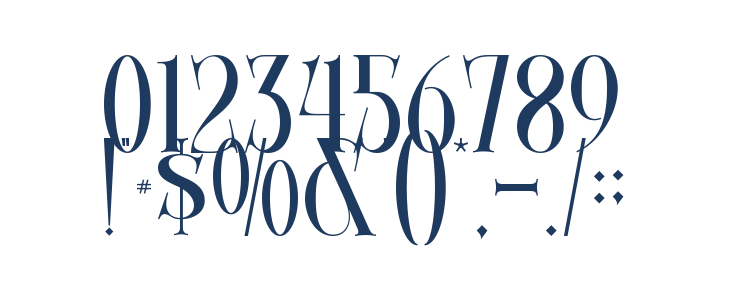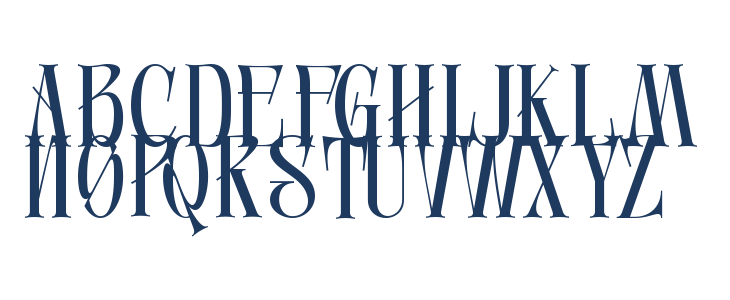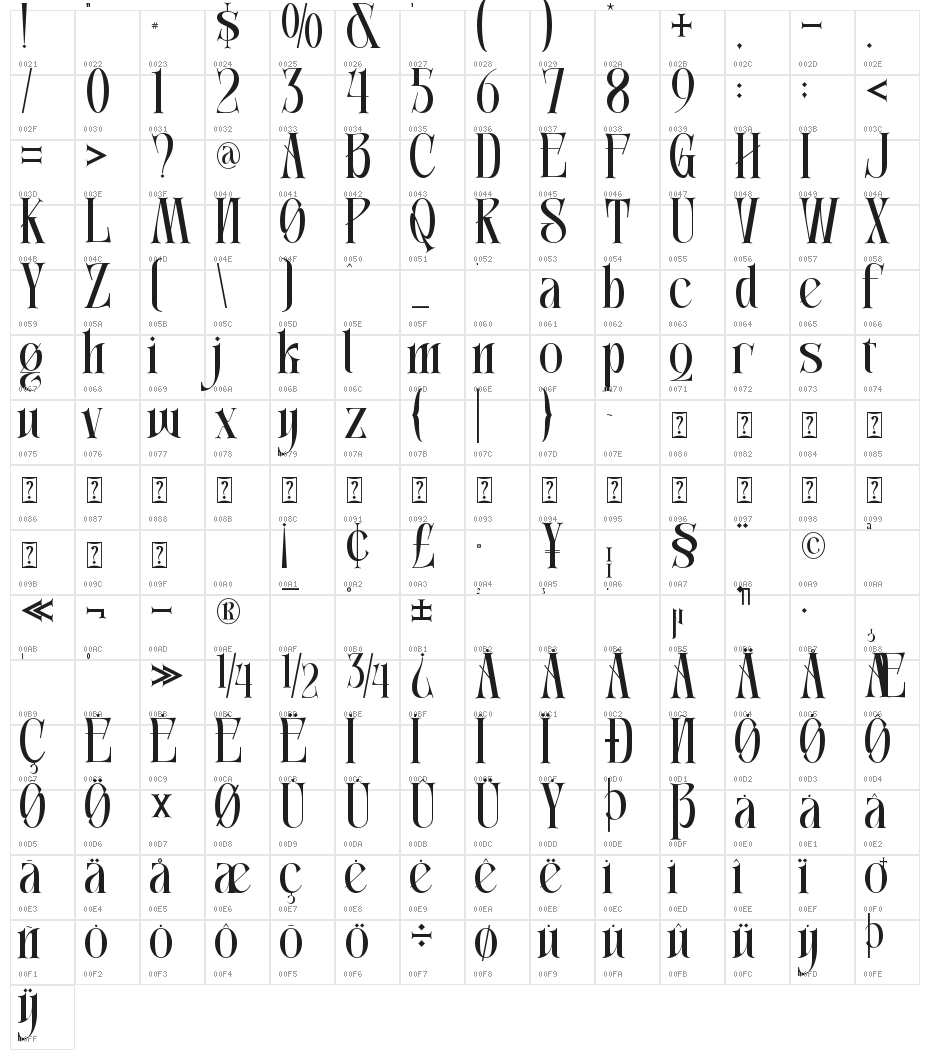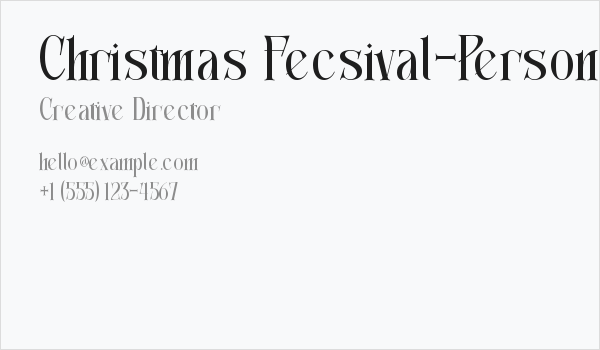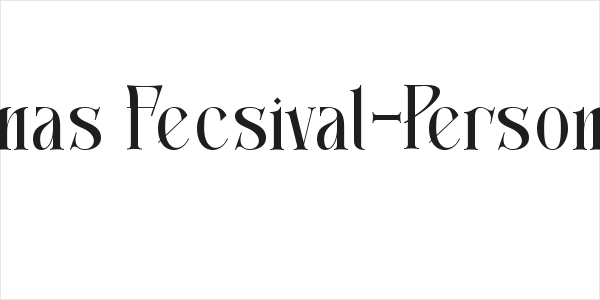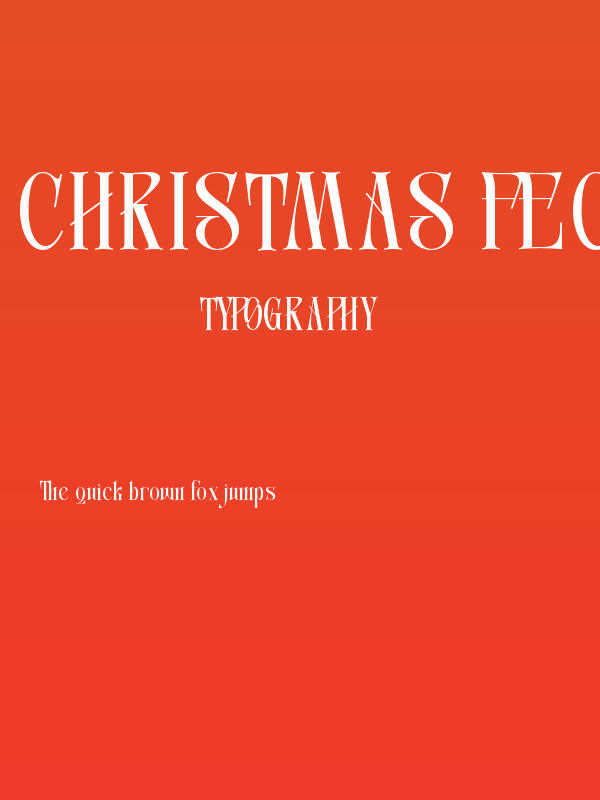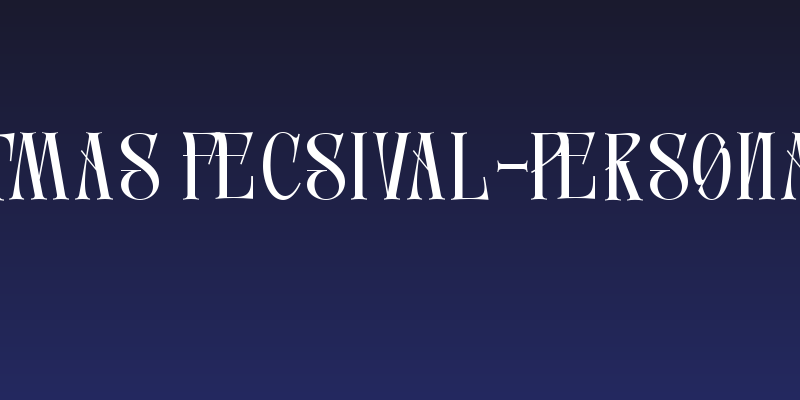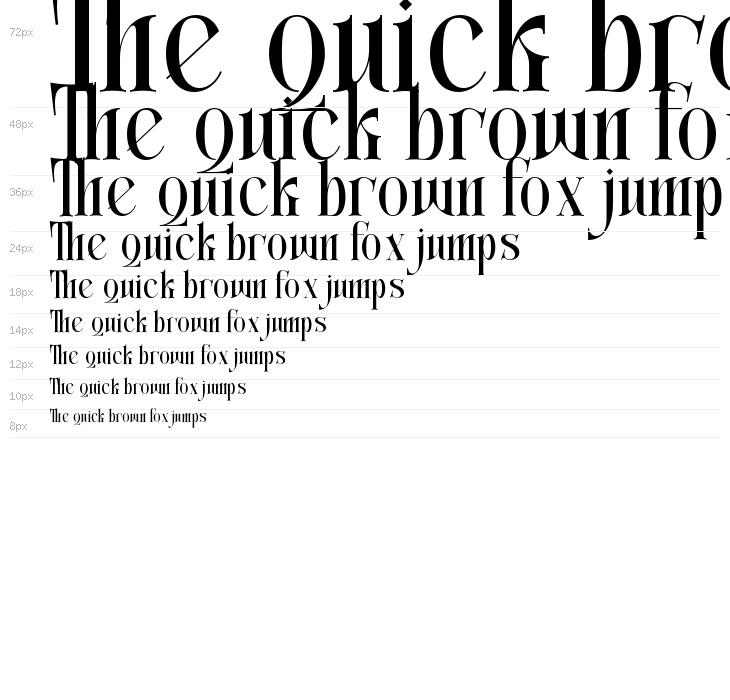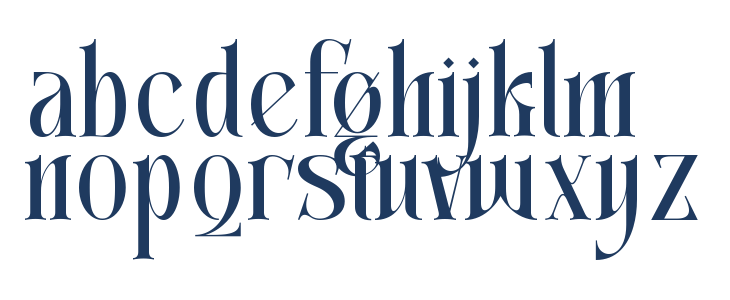
Christmas Fecsival-Personal use Font
Christmas Fecsival-Personal use Description
A decorative serif typeface with exaggerated vertical contrast, sharp triangular serifs, and playful, festive curves. The letterforms are tall and narrow with dramatic stroke variation, evoking a whimsical and celebratory feel.
| Overall Style | Decorative, Festive, Whimsical |
| Use Case | Headlines, Posters, Event Invitations, Holiday Branding |
| Proposed Projects | Holiday cards, event invitations, festive posters, branding for seasonal products. |